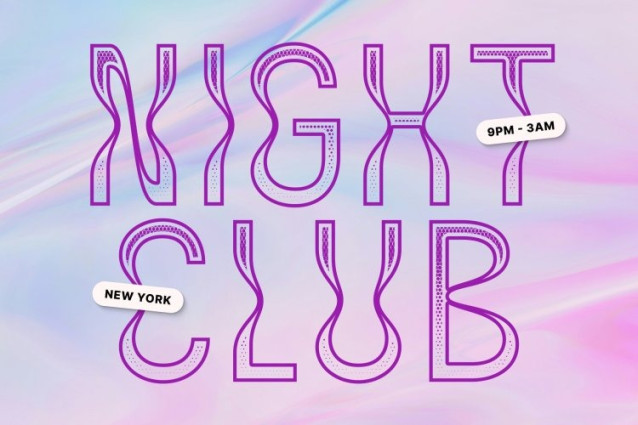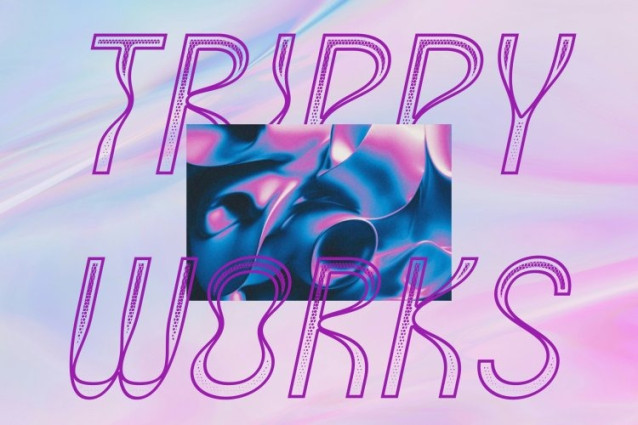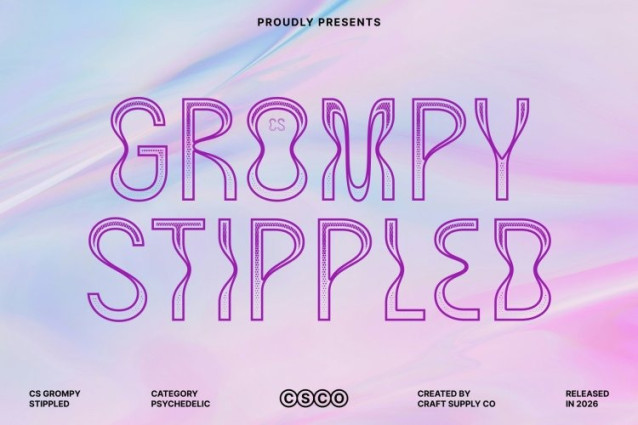
CS Grompy Stippled Font
CS Grompy Stippled Font – This is a vibrant psychedelic display font that captures the playful spirit of retro-inspired visual culture. Its lively letterforms feature curved, irregular, and repetitive shapes that create a dynamic and funky appearance. Enhanced with a stippled texture, the font gains a subtle dotted surface that adds depth and handcrafted character, enriching the energetic personality of the design.
Funky and Expressive Letterforms
The distinctive shapes of this font bring a sense of movement and spontaneity to typography. Curved lines and unconventional forms create a rhythmic flow that feels lively and imaginative. The stippled detailing complements these expressive shapes by adding visual texture, giving the font a slightly organic and artistic feel.
Bright, Bold, and Visually Captivating
Designed to shine in colorful compositions, this font works beautifully with bright palettes and bold graphic layouts. Its playful structure transforms simple text into a striking visual element, making designs feel energetic, cheerful, and full of personality.
Perfect for Creative and Energetic Projects
This is ideal for event posters, music album artwork, festival promotions, merchandise, and bold marketing campaigns. Its psychedelic inspiration and textured finish make it perfect for projects that aim to communicate creativity, excitement, and individuality.